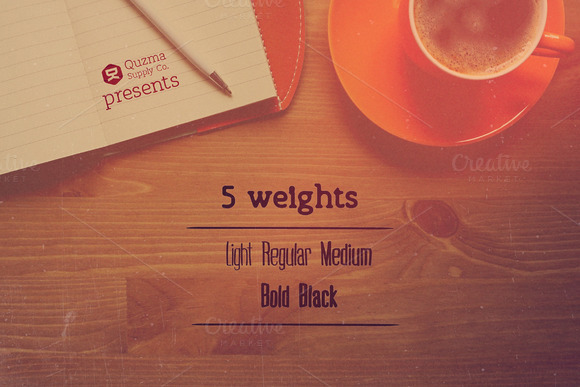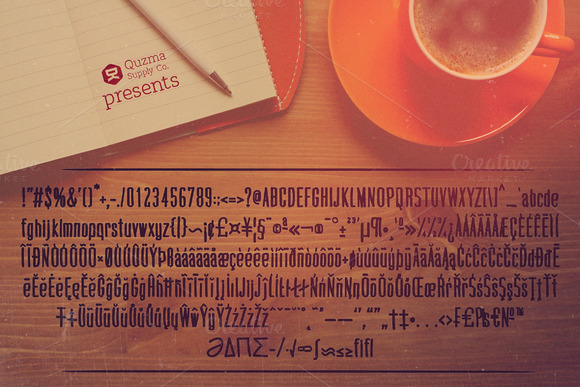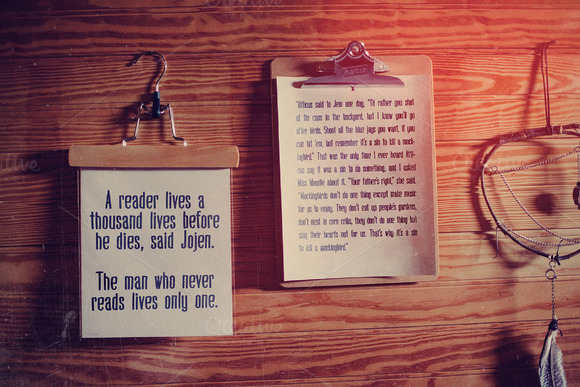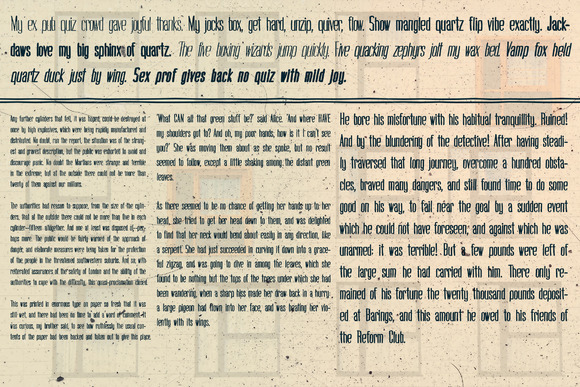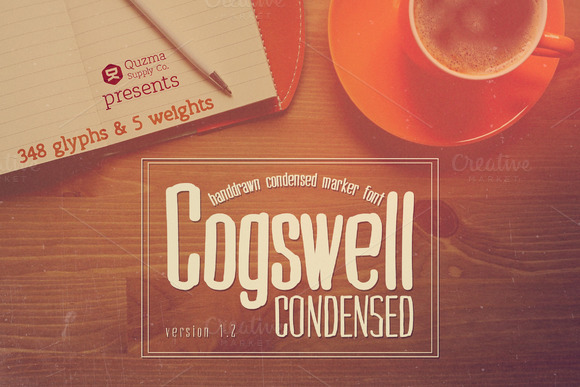
Cogswell Condensed Font: The Perfect Choice for Designers and Crafters
In the world of typography, fonts play a crucial role in conveying messages, evoking emotions, and creating visual identities. For designers and crafters, finding the right font can make all the difference in bringing their creative projects to life. If you’re on the hunt for a unique, handmade sans serif font that’s perfect for vintage signs, headers, logos, and more, look no further than Cogswell Condensed.
What is Cogswell Condensed?
Cogswell Condensed is a one-of-a-kind, handmade sans serif font that’s designed to add a touch of personality to your designs. With its clean lines, subtle imperfections, and condensed style, this font is ideal for creating visually striking text that stands out from the crowd. Whether you’re a designer, crafter, or DIY enthusiast, Cogswell Condensed is the perfect choice for adding a personal touch to your projects.
Characteristics of Cogswell Condensed
So, what makes Cogswell Condensed so special? Here are just a few of its key characteristics:
- Handmade with love: Cogswell Condensed is a unique, handmade font that’s been crafted with care and attention to detail. Its subtle imperfections and quirks give it a personal, human touch that’s hard to find in digital fonts.
- Sans serif style: With its clean lines and minimalist aesthetic, Cogswell Condensed is a sans serif font that’s perfect for creating modern, sophisticated designs.
- Condensed style: The condensed style of Cogswell Condensed makes it ideal for creating compact, space-saving text that’s perfect for headers, titles, and other applications where space is limited.
- Vintage vibe: Despite its modern aesthetic, Cogswell Condensed has a distinctly vintage feel that’s perfect for creating retro-inspired designs, signs, and headers.
Uses for Cogswell Condensed
So, what can you use Cogswell Condensed for? The possibilities are endless! Here are just a few ideas to get you started:
- Vintage signs and headers: Cogswell Condensed is perfect for creating eye-catching vintage signs and headers that add a touch of nostalgia to your designs.
- Logos and branding: With its unique, handmade style, Cogswell Condensed is an excellent choice for creating custom logos and branding materials that stand out from the crowd.
- T-shirts and apparel: Cogswell Condensed is a great choice for designing custom t-shirts, hoodies, and other apparel that requires a bold, eye-catching font.
- Quotes and posters: The condensed style of Cogswell Condensed makes it perfect for creating striking quotes and posters that pack a punch.
- Handwritten marker text: Cogswell Condensed is also great for replicating handwritten marker text, making it perfect for creating DIY-style signs and headers.
Why Choose Cogswell Condensed?
So, why should you choose Cogswell Condensed for your next design project? Here are just a few reasons:
- Unique and distinctive: Cogswell Condensed is a one-of-a-kind font that’s sure to make your designs stand out from the crowd.
- Highly versatile: With its clean lines and condensed style, Cogswell Condensed can be used for a wide range of design applications, from vintage signs to logos and branding.
- Easy to read: Despite its condensed style, Cogswell Condensed is surprisingly easy to read, making it perfect for creating designs that require a clear, legible font.
- Handmade with love: Cogswell Condensed is a handmade font that’s been crafted with care and attention to detail, giving it a personal touch that’s hard to find in digital fonts.
| Author | Quzma Supply Co. |
In conclusion, Cogswell Condensed is a unique, handmade sans serif font that’s perfect for designers and crafters looking to add a touch of personality to their designs. With its clean lines, subtle imperfections, and condensed style, this font is ideal for creating visually striking text that’s perfect for vintage signs, headers, logos, and more. Whether you’re a seasoned designer or a DIY enthusiast, Cogswell Condensed is an excellent choice for bringing your creative projects to life.